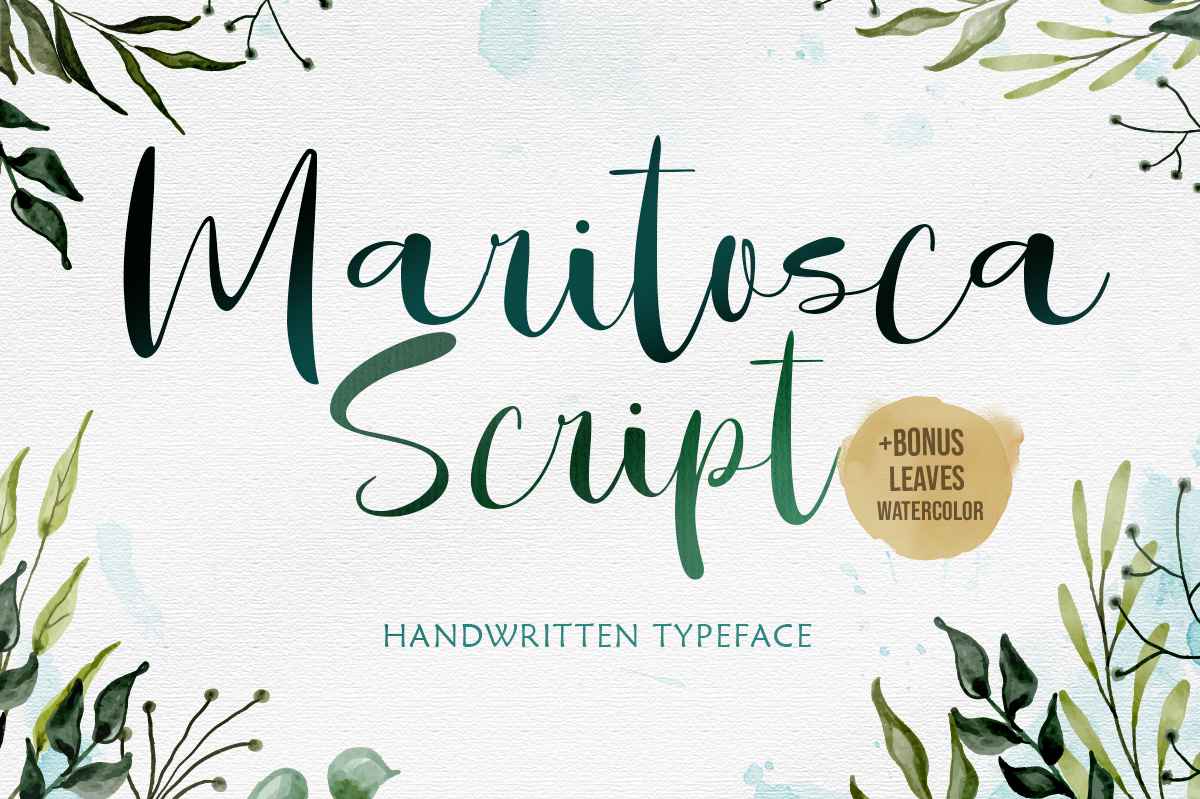
Maritosca Font
This elegant and romantic typeface is perfect for wedding invitation designs, luxury spa branding, fine dining restaurant menus, boutique fashion labels, perfume packaging, jewelry store signage, romantic greeting cards, beauty salon branding, and sophisticated event planning materials that require a delicate, feminine touch.
Maritosca Font brings excitement to design projects with its graceful curves and enchanting calligraphic characteristics. The font features flowing letterforms with delicate flourishes that evoke feelings of romance, elegance, and timeless beauty. Its sophisticated script elements and refined details make it an ideal choice for brands that want to communicate femininity, luxury, and emotional connection in their visual storytelling.
The Maritosca Font family includes various romantic styles: Regular, Bold, Light, Decorative, Swash, and Ornamental versions. Each variant maintains the font's enchanting character while providing designers with creative flexibility for different romantic applications. The family also features elaborate decorative elements, contextual alternates, beautiful ligatures, and special ornamental flourishes that enhance the overall romantic aesthetic.
The font's artistic excellence includes carefully balanced stroke weights, flowing connections between characters, and subtle texture variations that mimic hand-lettered calligraphy. Whether you're designing wedding stationery, luxury brand campaigns, or romantic product packaging, this font delivers the sophisticated elegance that creates memorable emotional experiences for discerning audiences.